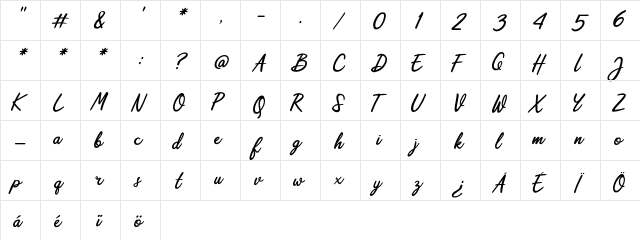
Scripterialism Regular
| Designer | Onne Hermaone |
Design Context for Scripterialism Typeface
Scripterialism flows with the natural rhythm of handwritten lettering, making it ideal for designs that call for warmth and personal expression.
Font Pairing: Combine Scripterialism with a simple geometric sans for maximum contrast — the tension between flowing curves and clean structure is a classic typographic pairing.
Pro Tip: Pair Scripterialism with a clean sans-serif for supporting text. The contrast between fluid script and geometric structure creates an elegant typographic hierarchy.